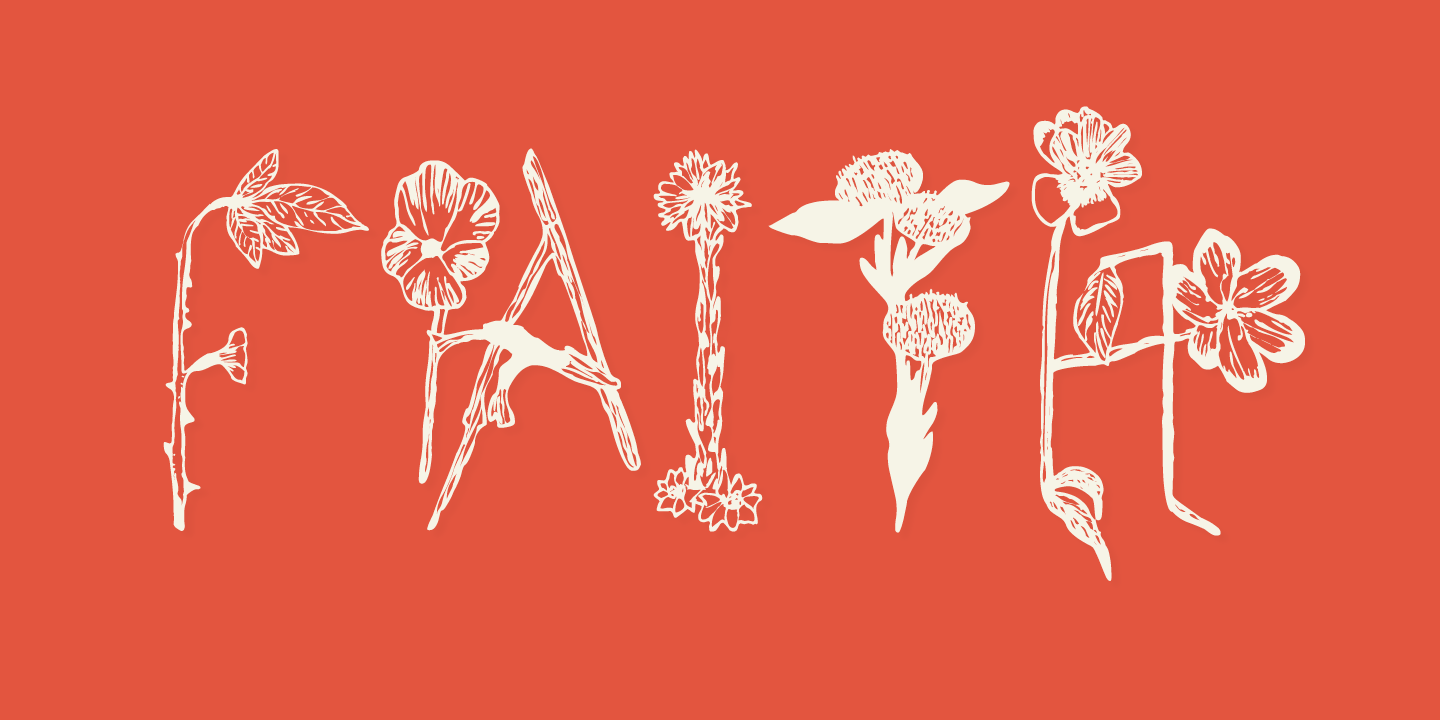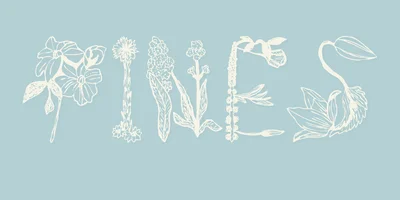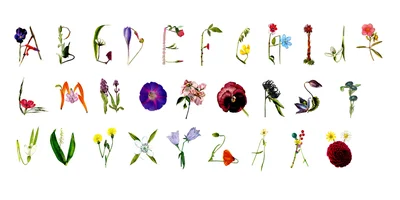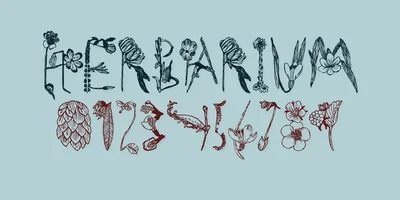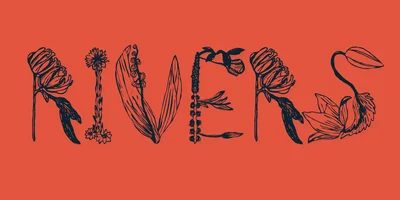
Croogla vs Herbarium
Croogla and Herbarium are both display typefaces from different design traditions. Where Croogla leans geometric, modern, Herbarium brings display, expressive. Compare which suits your Branding project.
Croogla
Geometric
ModernBold
Herbarium
Expressive
Display
| Feature | Croogla | Herbarium |
| Classification | display | display |
| Language Support | latin, latin-extended, cyrillic | latin, latin-extended |
| Source | 4th february | Gustav & Brun |
Headlines
Logos
Packaging
Recommended: Croogla
- geometric, modern design character
- Suited for Logos
- From 4th-february
Consider: Herbarium
- display, expressive design character
- Suited for Packaging and Editorial
- From gustav-and-brun